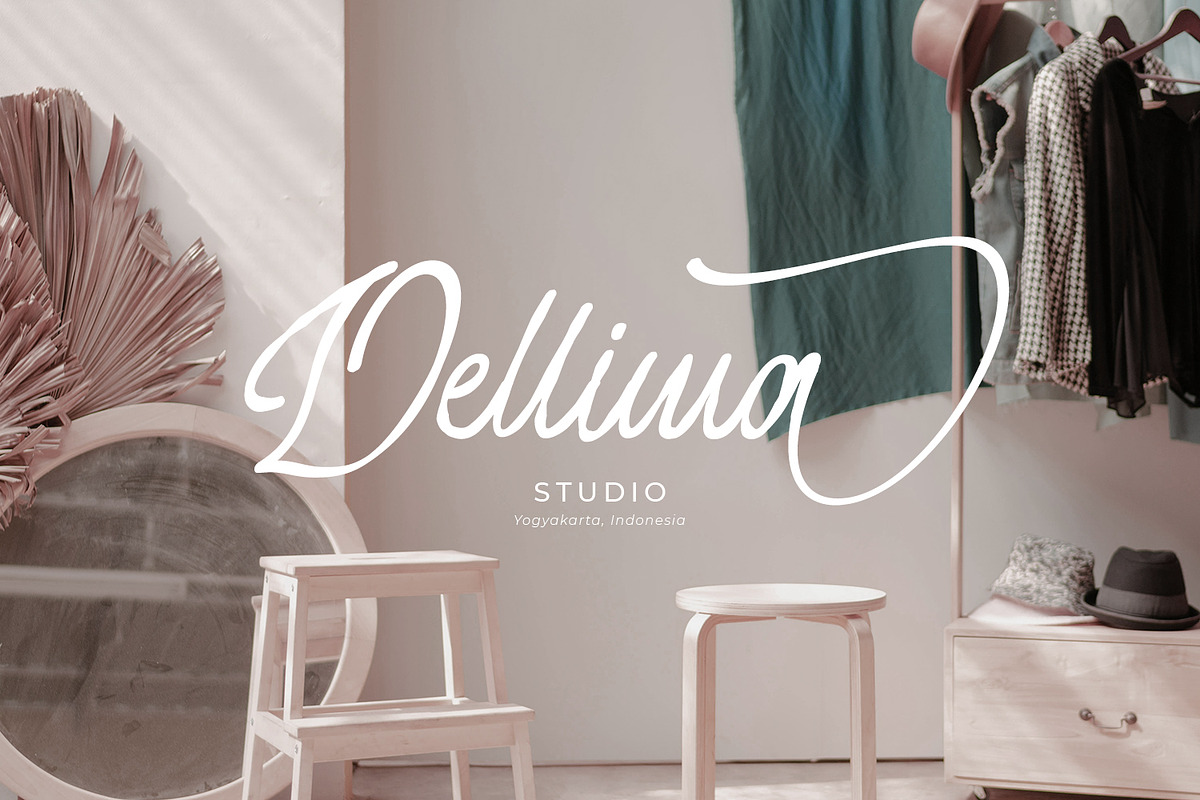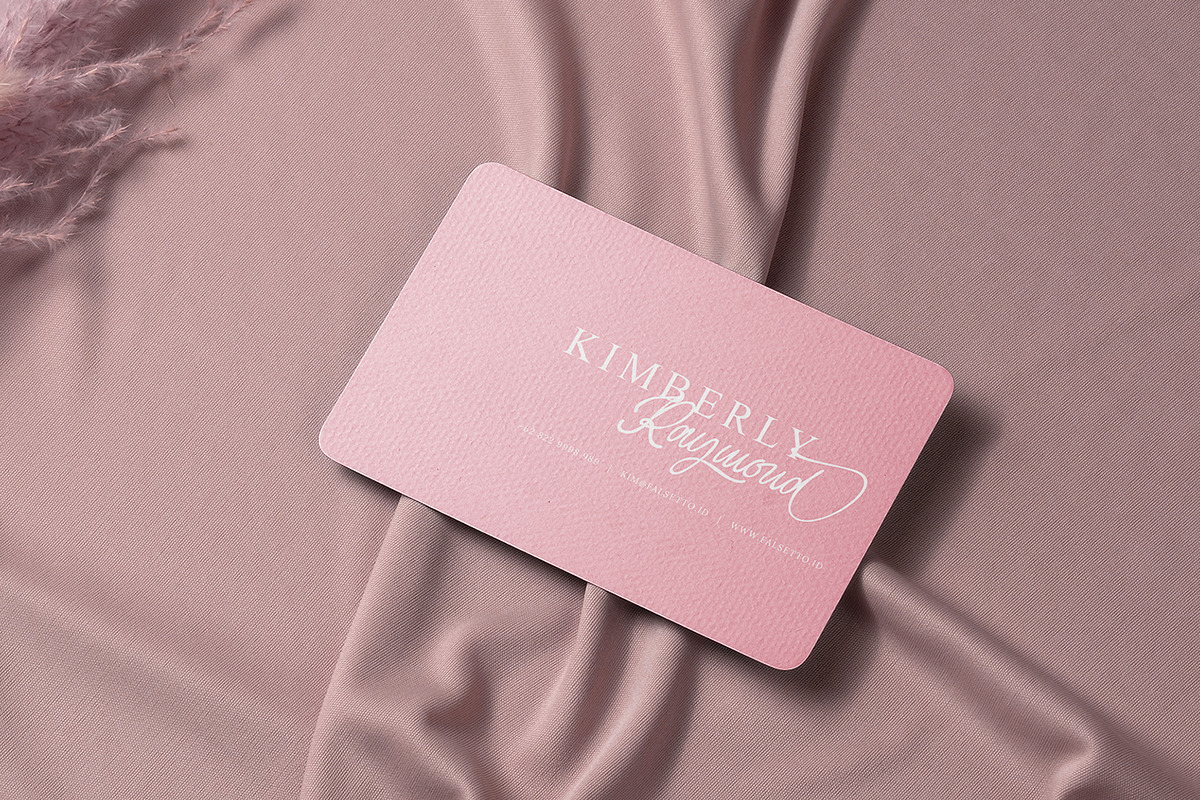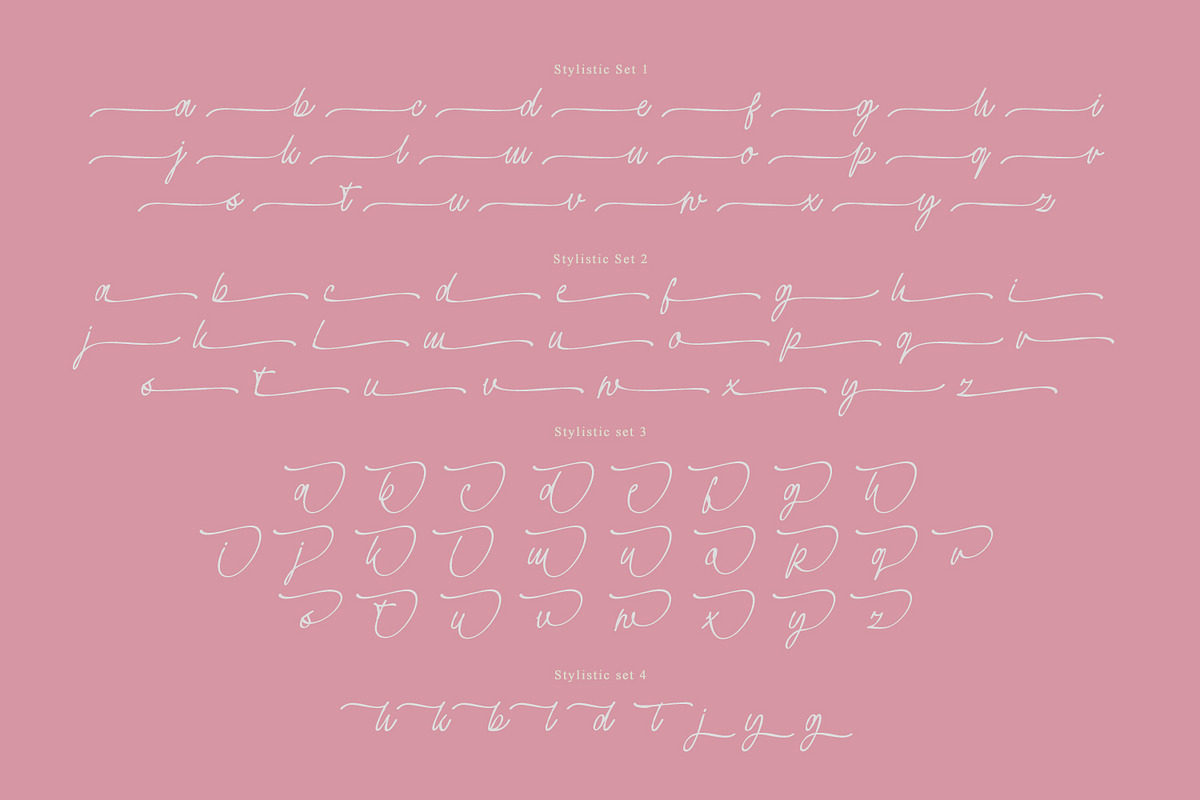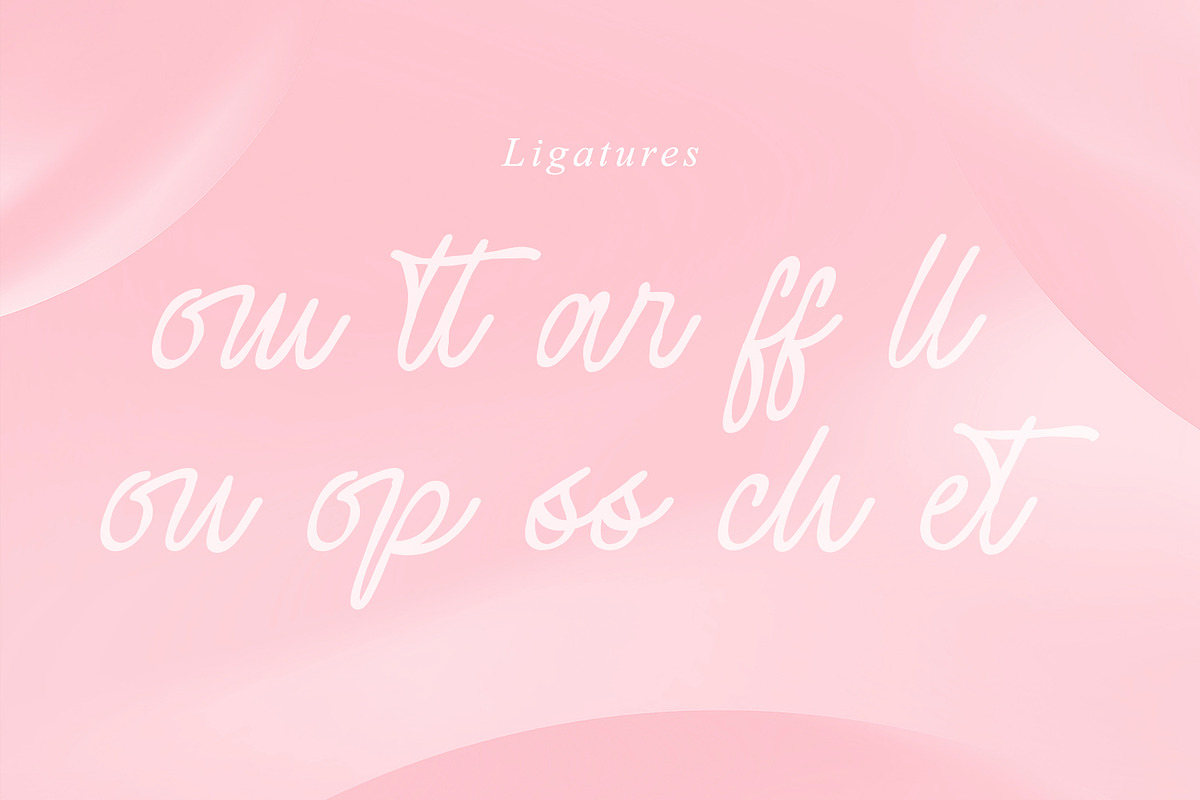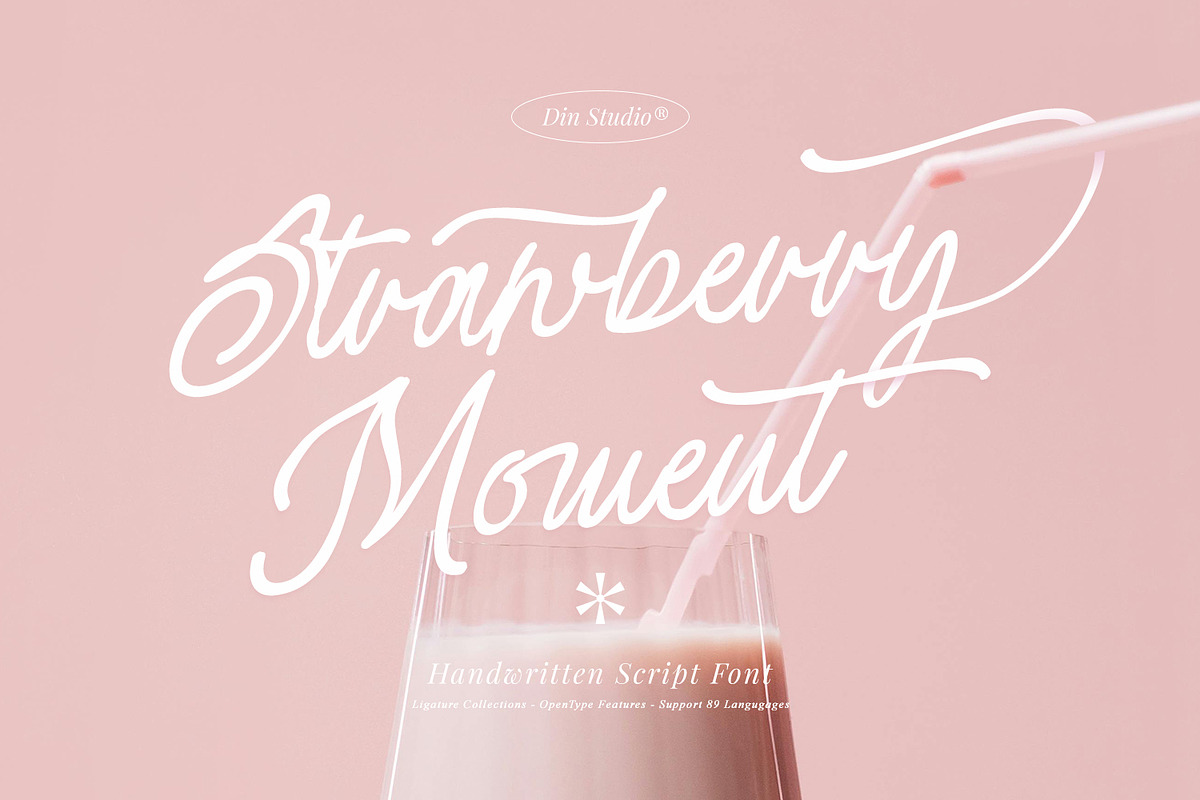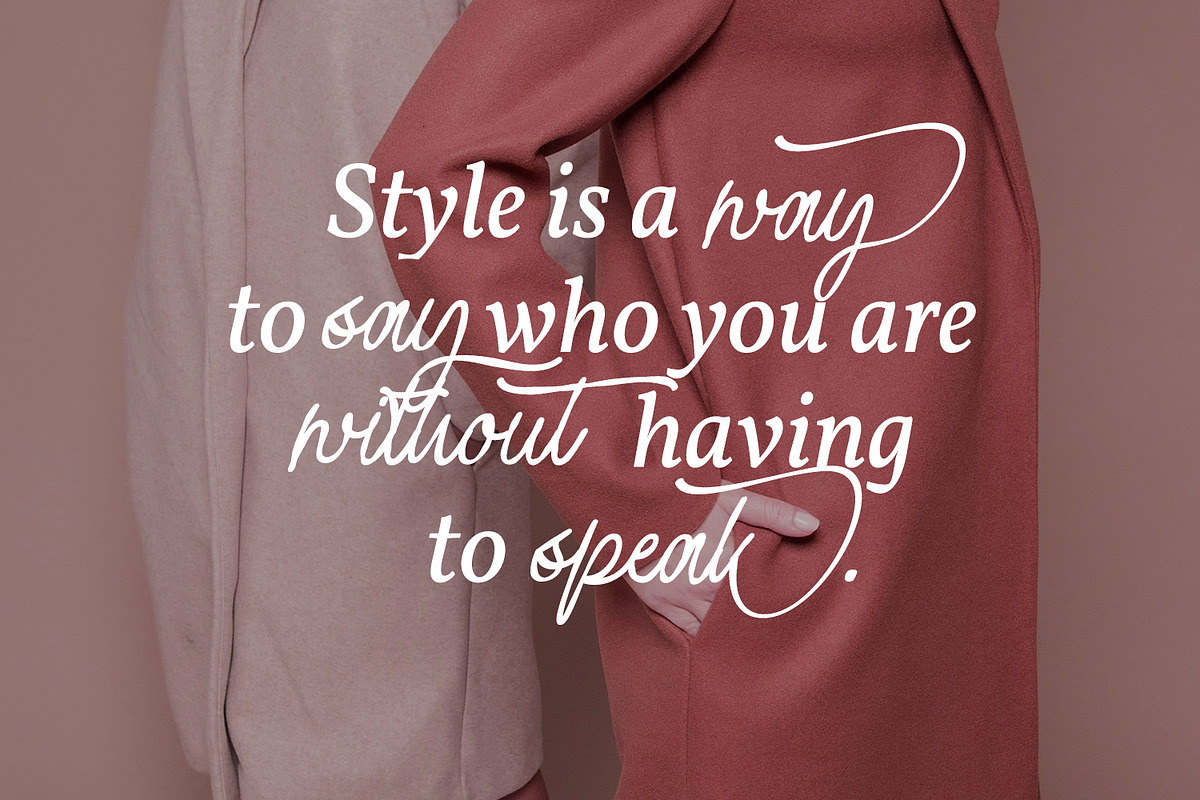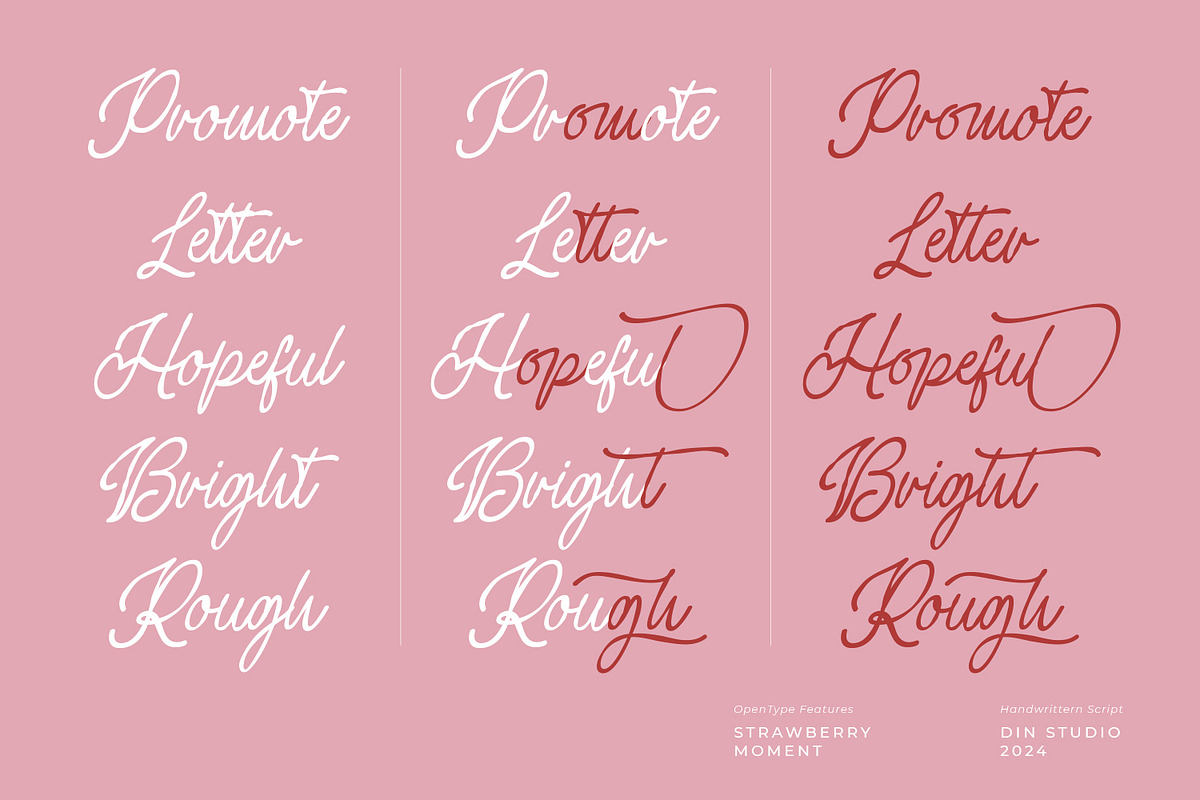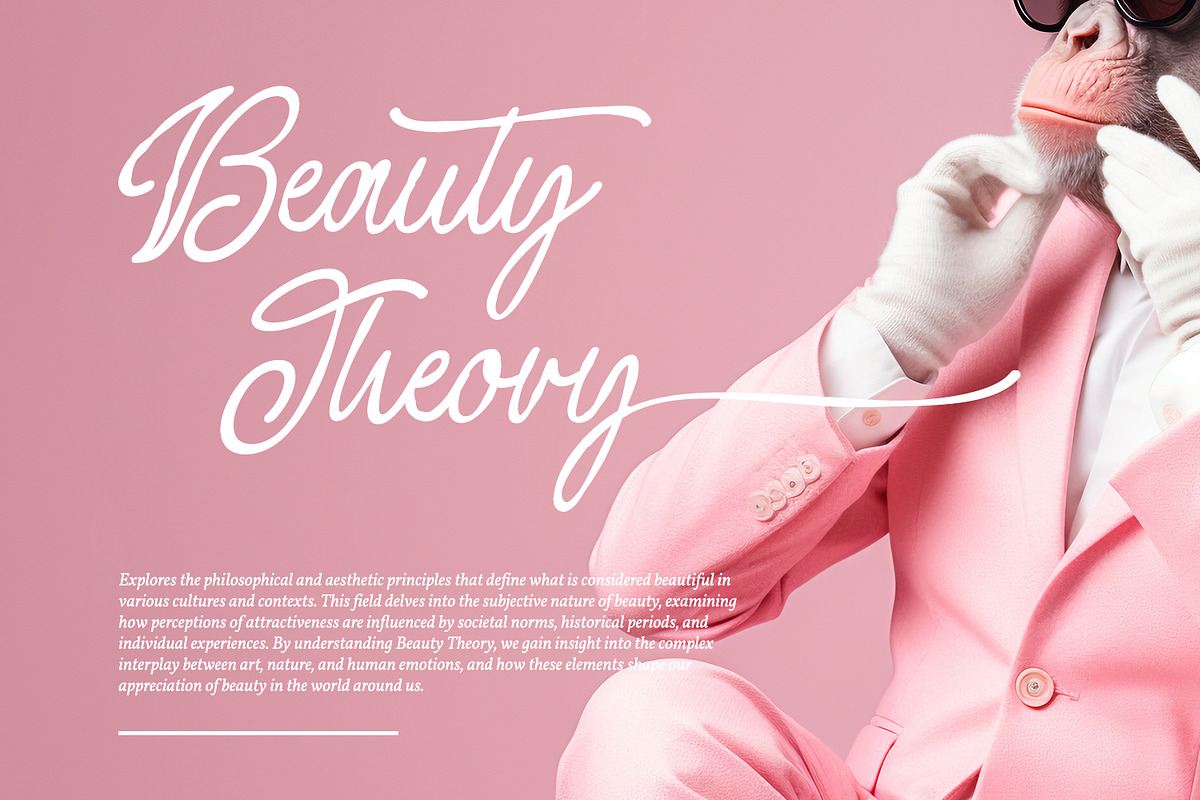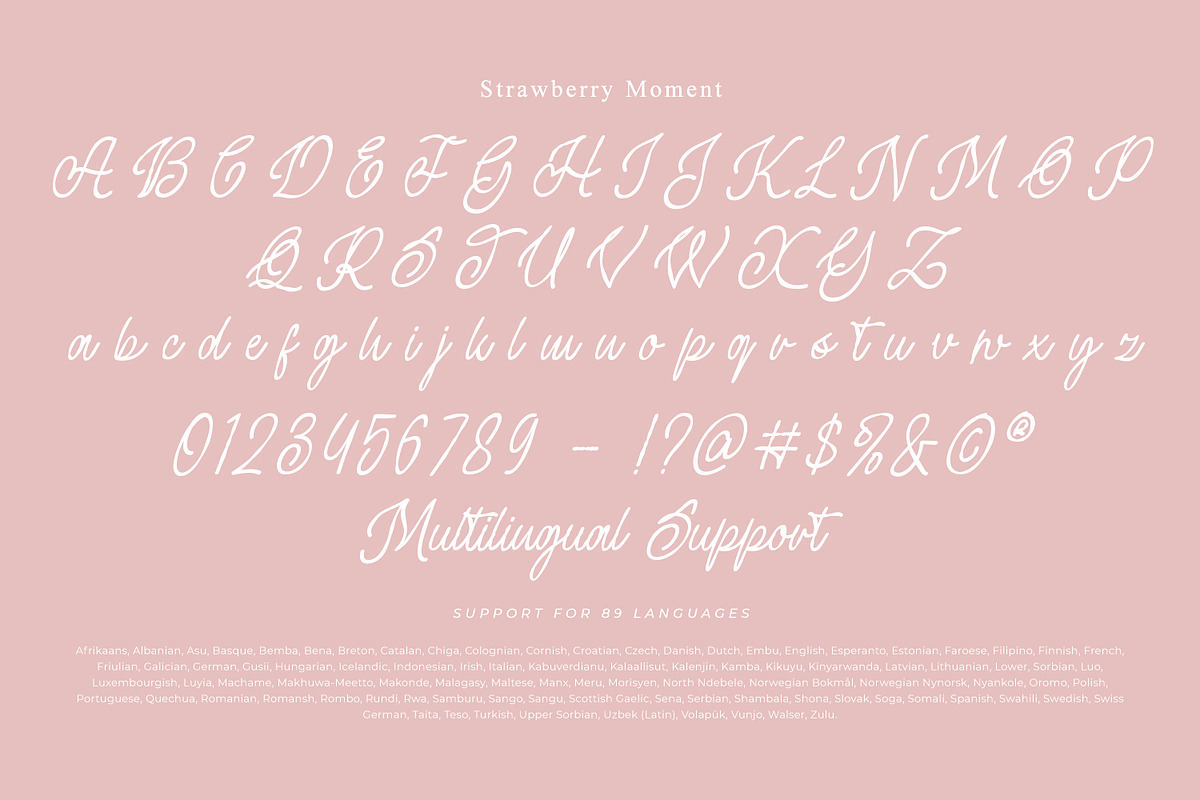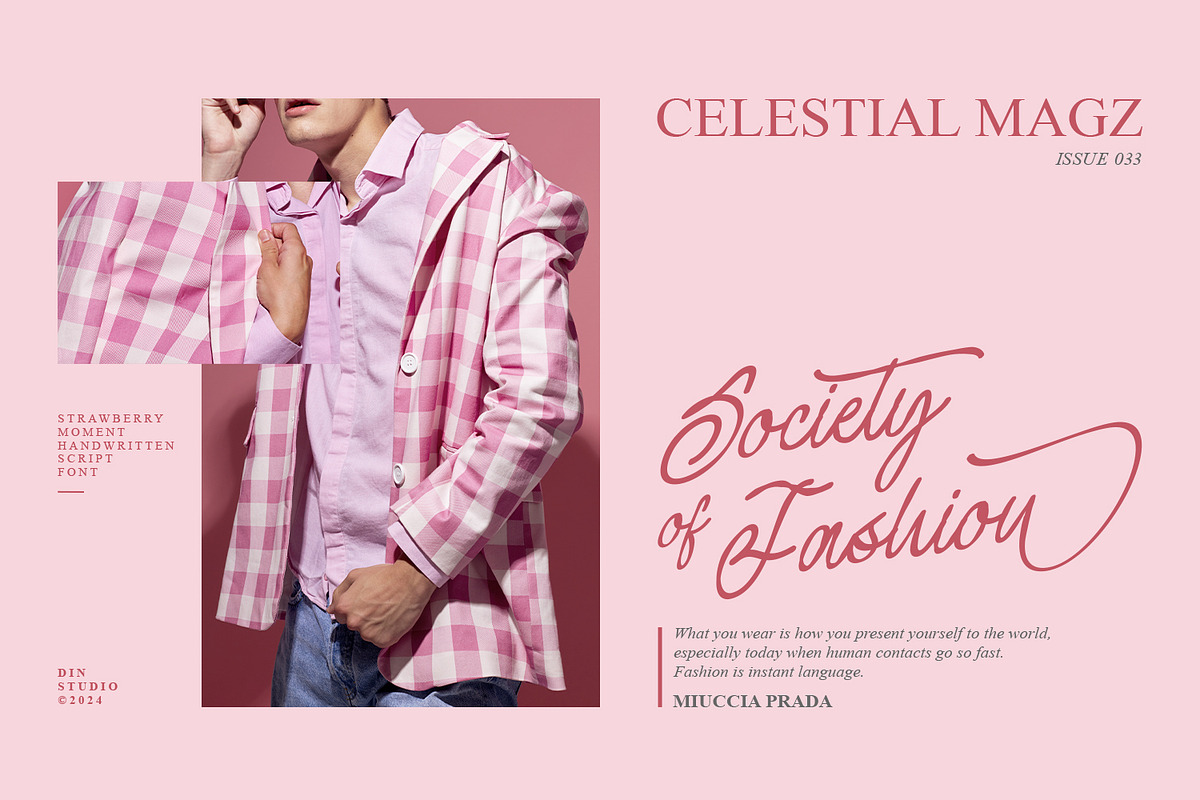
Strawberry Moment
Introducing Strawberry Moment – a delightful script font that captures the essence of handwritten charm. Each letter flows gracefully into the next with smooth, connected strokes, creating a harmonious and consistent rhythm throughout your text. The consistent letter proportions ensure readability and elegance, while the whimsical swinging endings add a playful touch. In addition, enjoy the features here.
- Stylistic Sets
Strawberry Moment fits in logos, posters, flyers, branding materials, print media, editorial layouts, and many more designs. Find out more ways to use this font by taking a look at the font preview.